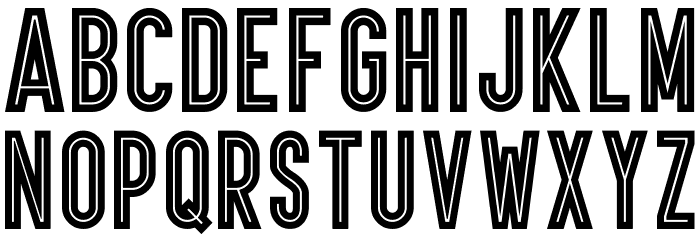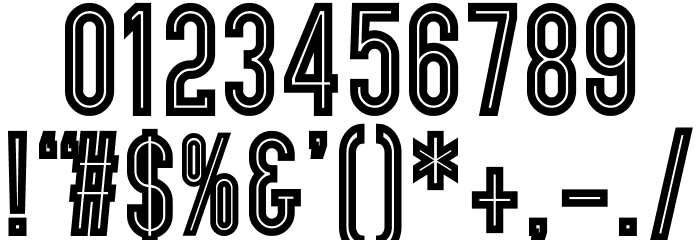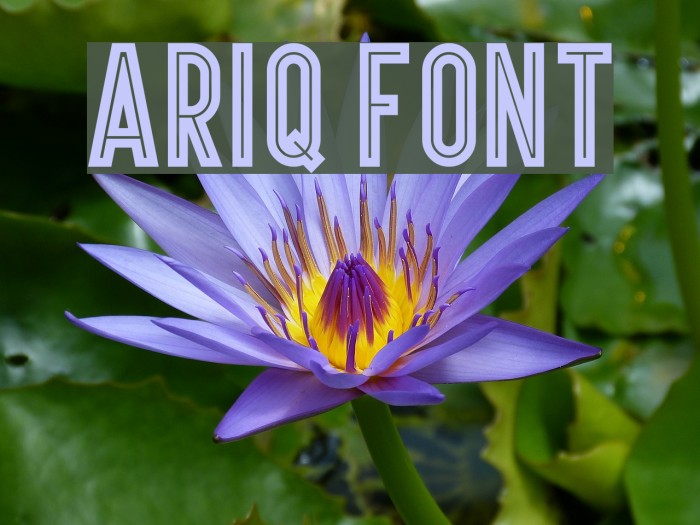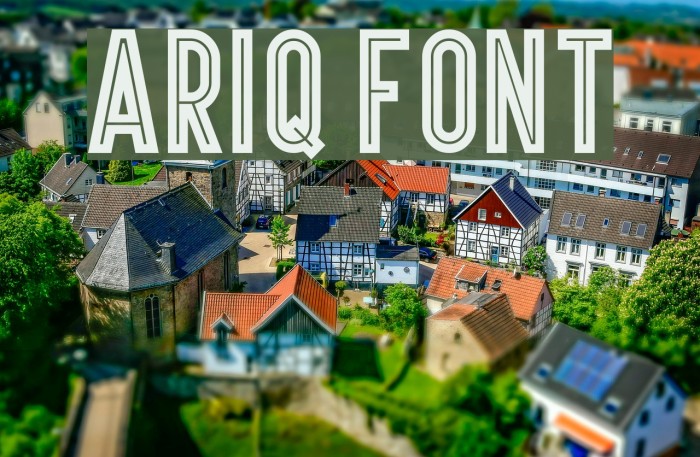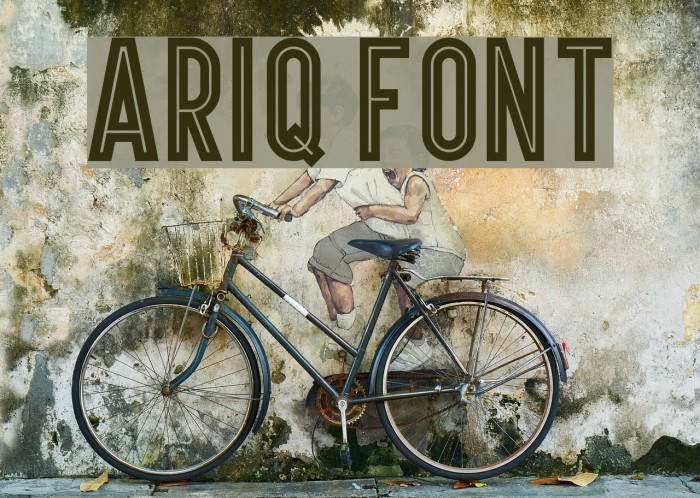
Ariq Font
This font features a bold, modern design with a strong emphasis on geometric shapes and clean lines. The characters are outlined, creating a striking visual effect that enhances readability while maintaining a stylish appearance. The uppercase and lowercase letters are consistent in style, with a uniform stroke width that gives the font a cohesive look. The numbers and special characters are designed to match the overall aesthetic, ensuring versatility across various applications. The font's boldness and clarity make it suitable for attention-grabbing headlines and impactful designs.
A bold, modern font with geometric outlines and clean lines.